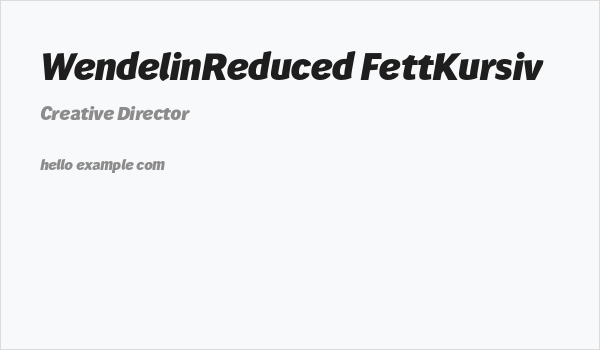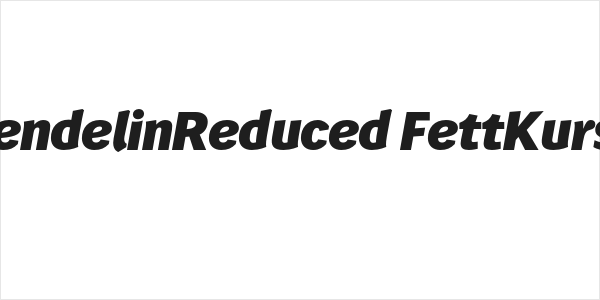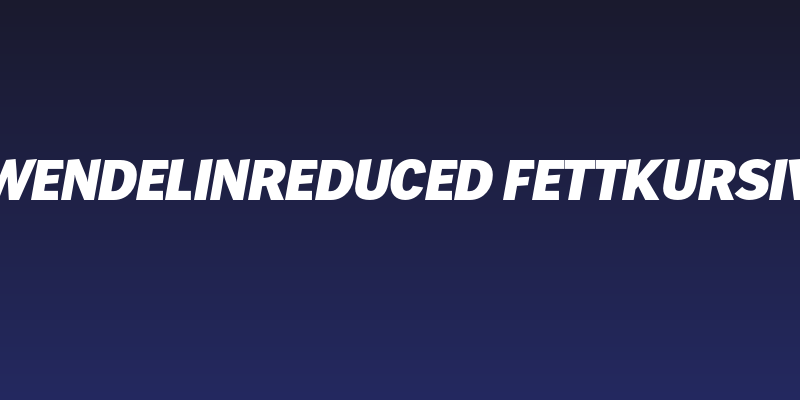
WendelinReduced-FettKursiv Font
WendelinReduced-FettKursiv Description
This font features a bold and italicized style with a strong presence. The characters are slightly slanted, giving it a dynamic and energetic appearance. The strokes are thick and consistent, providing a robust and impactful look. The uppercase and lowercase letters maintain a uniform design, ensuring readability and cohesion. The overall design is modern and suitable for making statements in various design contexts.
| Proposed Projects | Ideal for headlines, posters, branding materials, and advertising where a strong and modern impact is desired. |